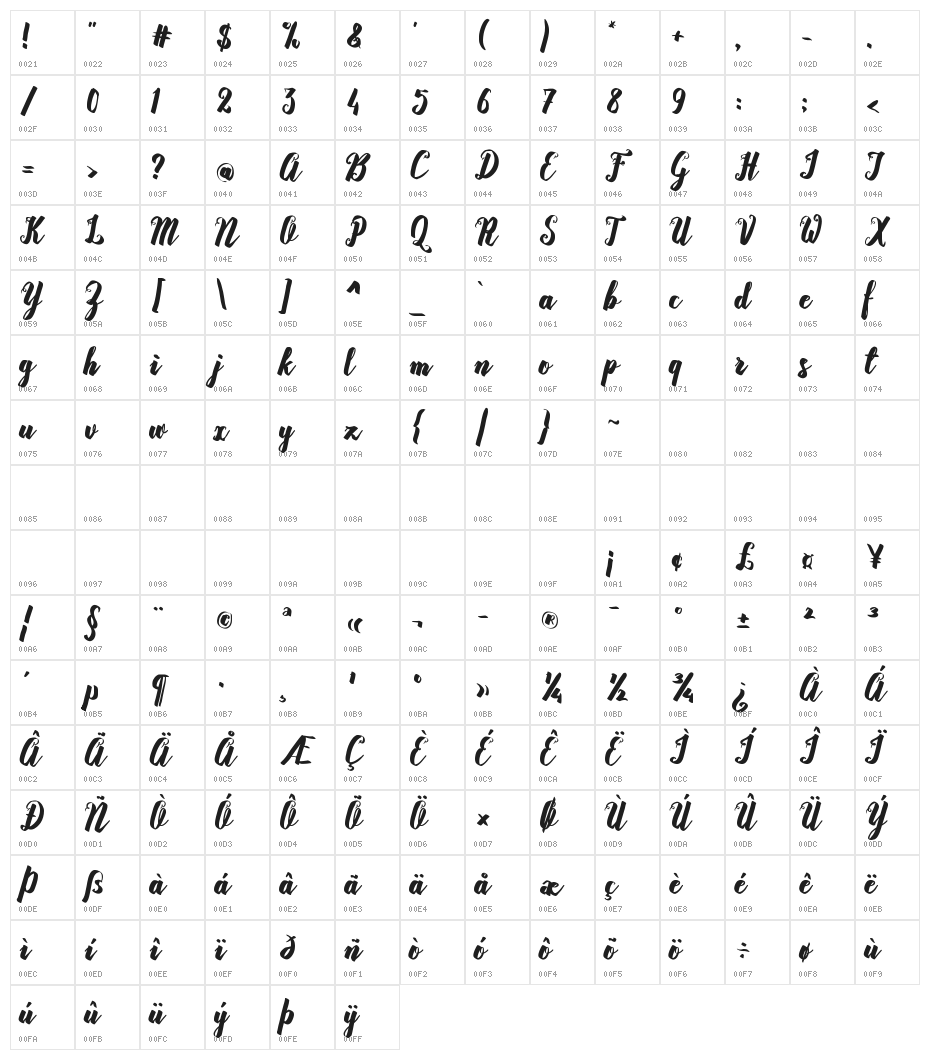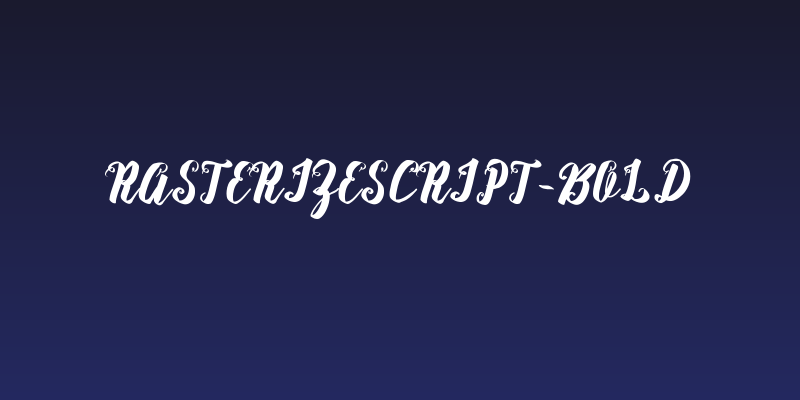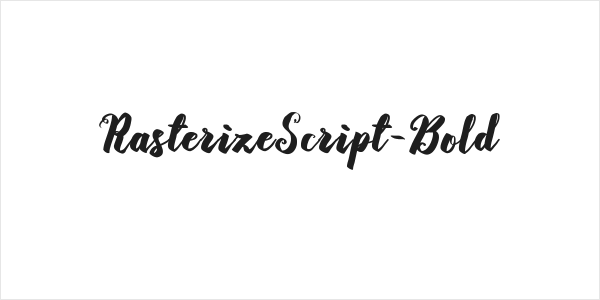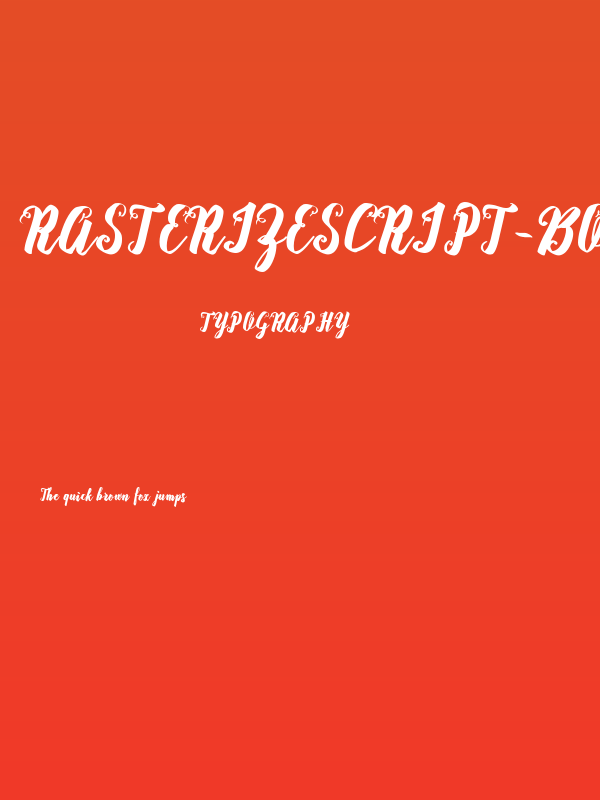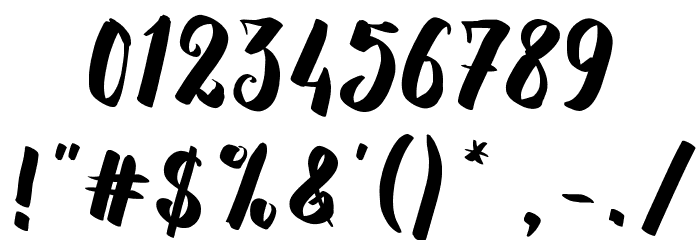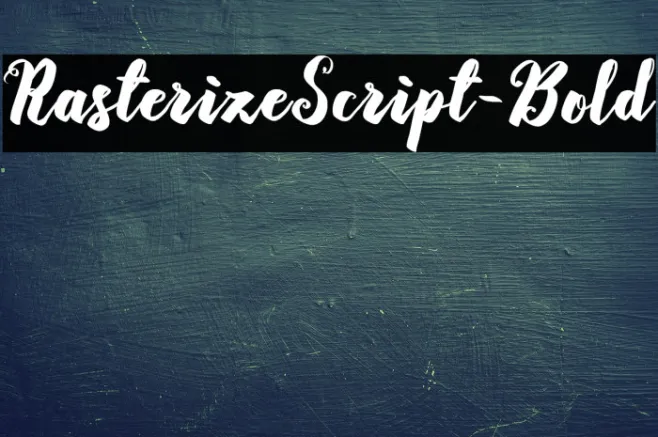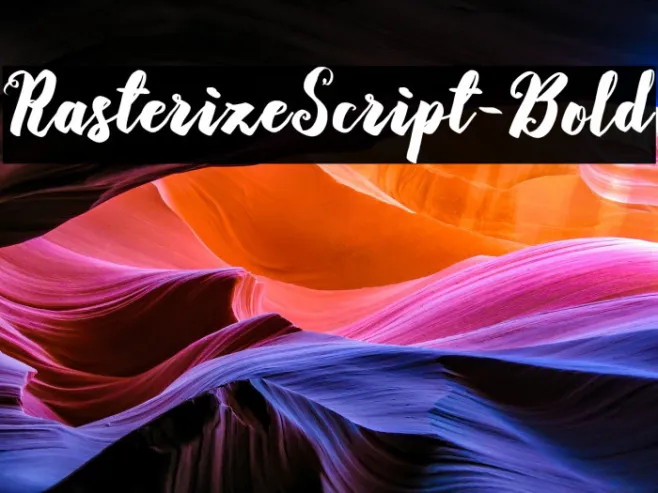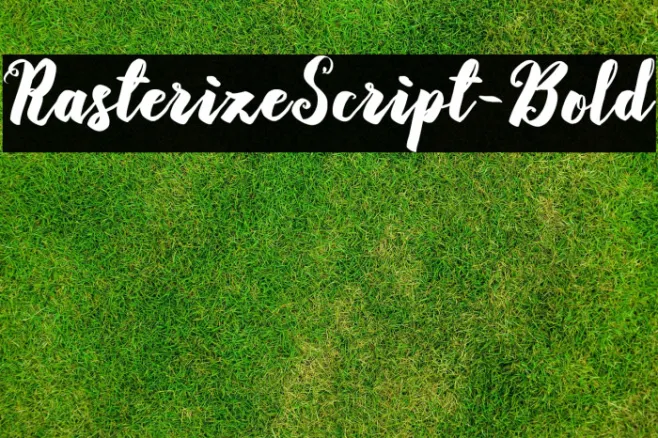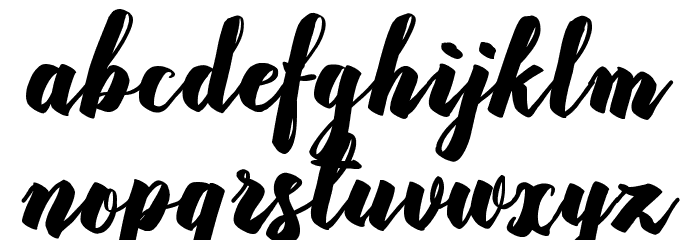
RasterizeScript-Bold Font
RasterizeScript-Bold Description
This font exhibits a bold and expressive script style, characterized by its fluid and dynamic strokes. The letters are interconnected, creating a sense of movement and elegance. The uppercase letters are particularly ornate, with flourishes and loops that add a decorative touch. The lowercase letters maintain a consistent flow, enhancing readability while preserving the artistic flair. The numerals and special characters are designed to match the overall aesthetic, ensuring a cohesive look across all text elements. This font is ideal for projects that require a touch of sophistication and creativity.
| Font Family | Rasterize Script |
| Proposed Projects | Ideal for wedding invitations, branding, logo design, and artistic posters. |